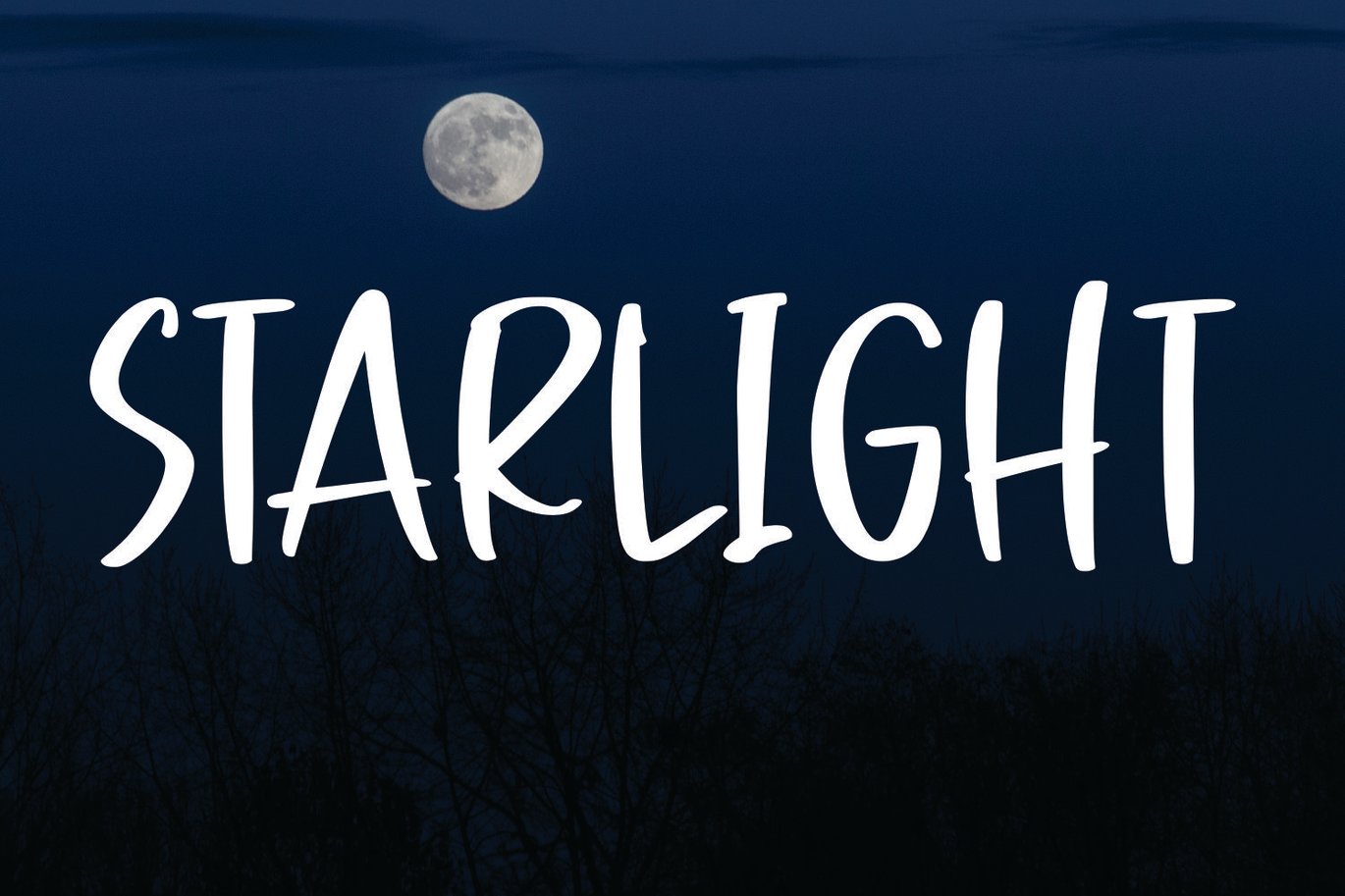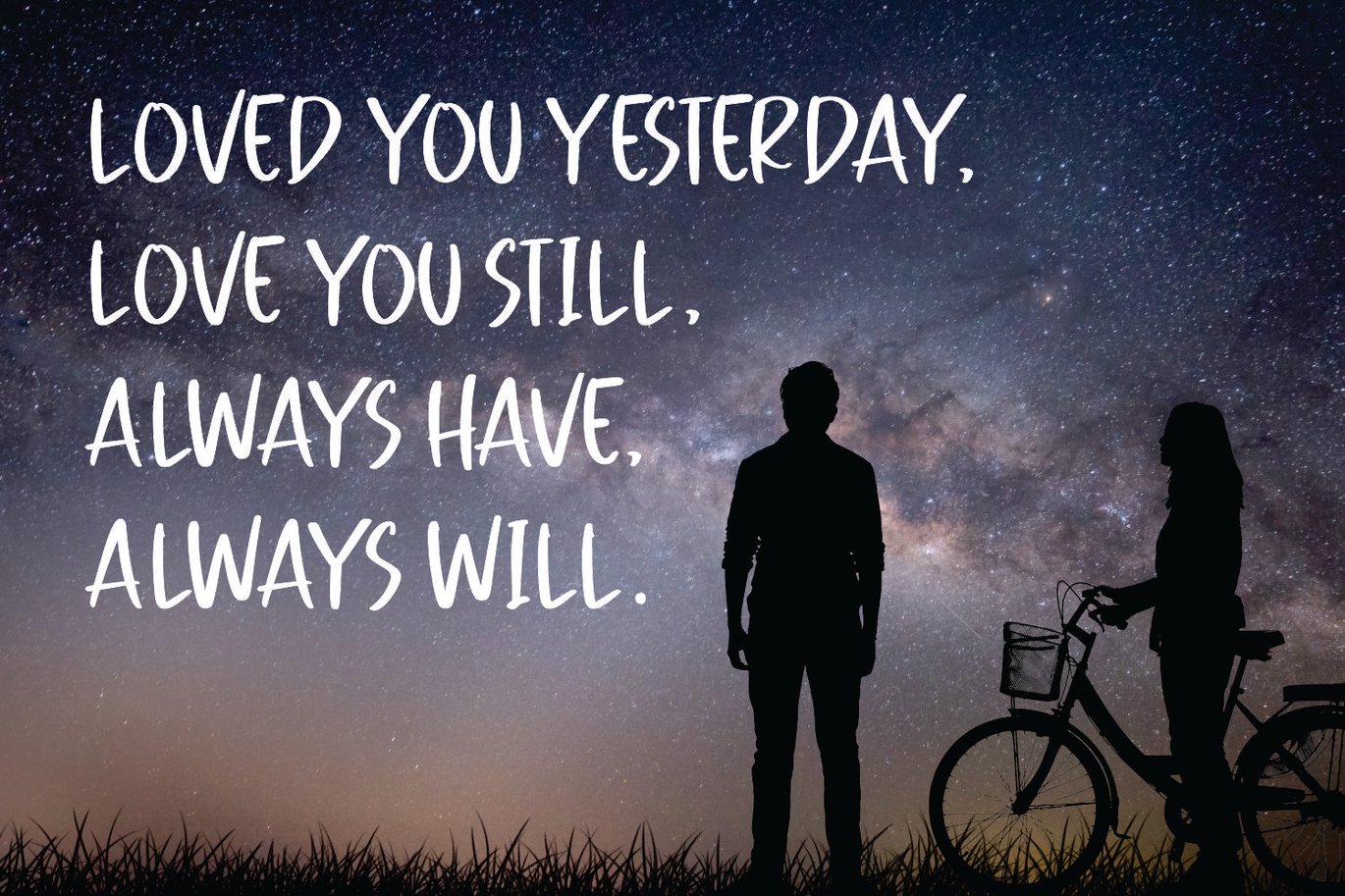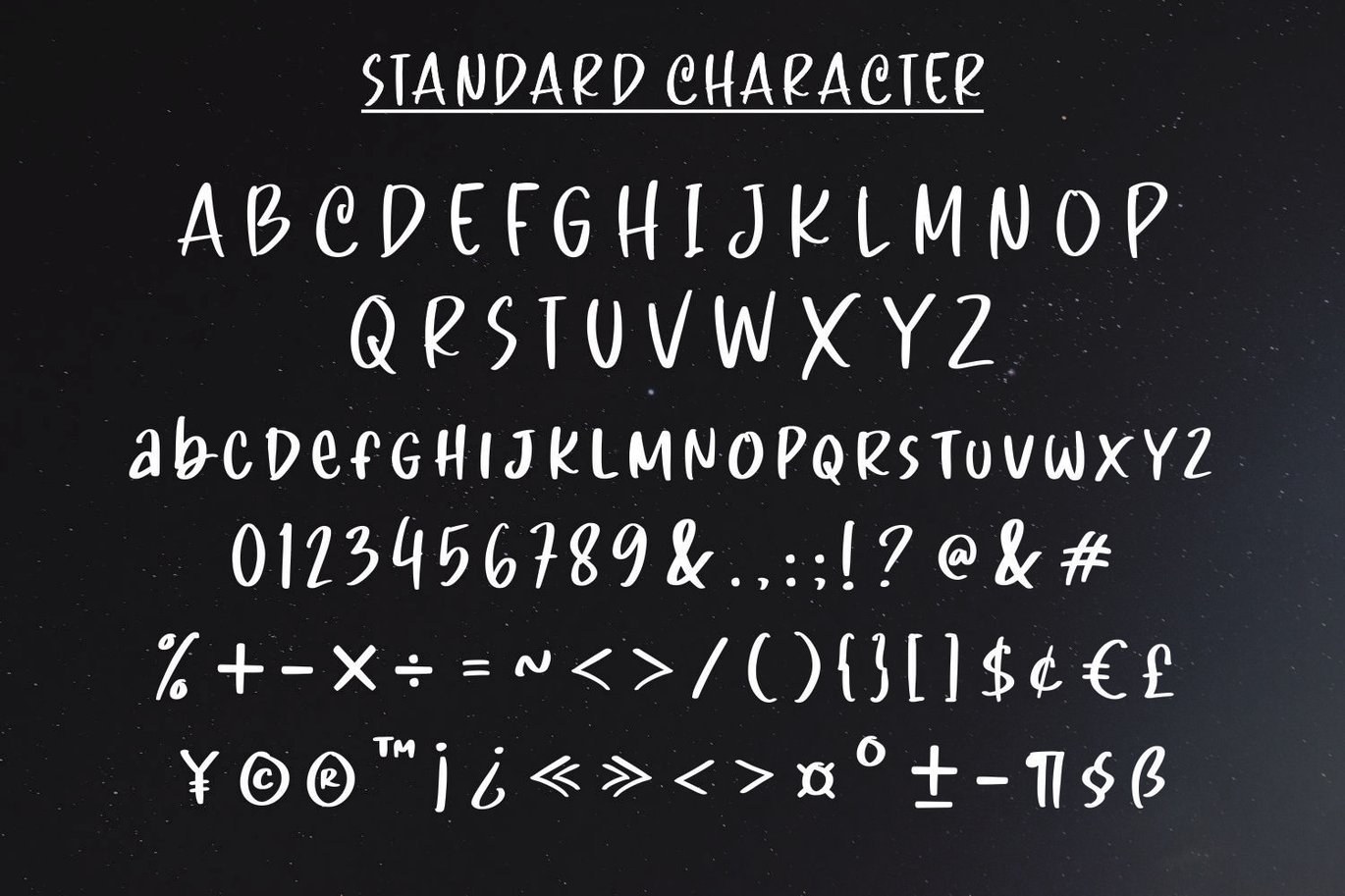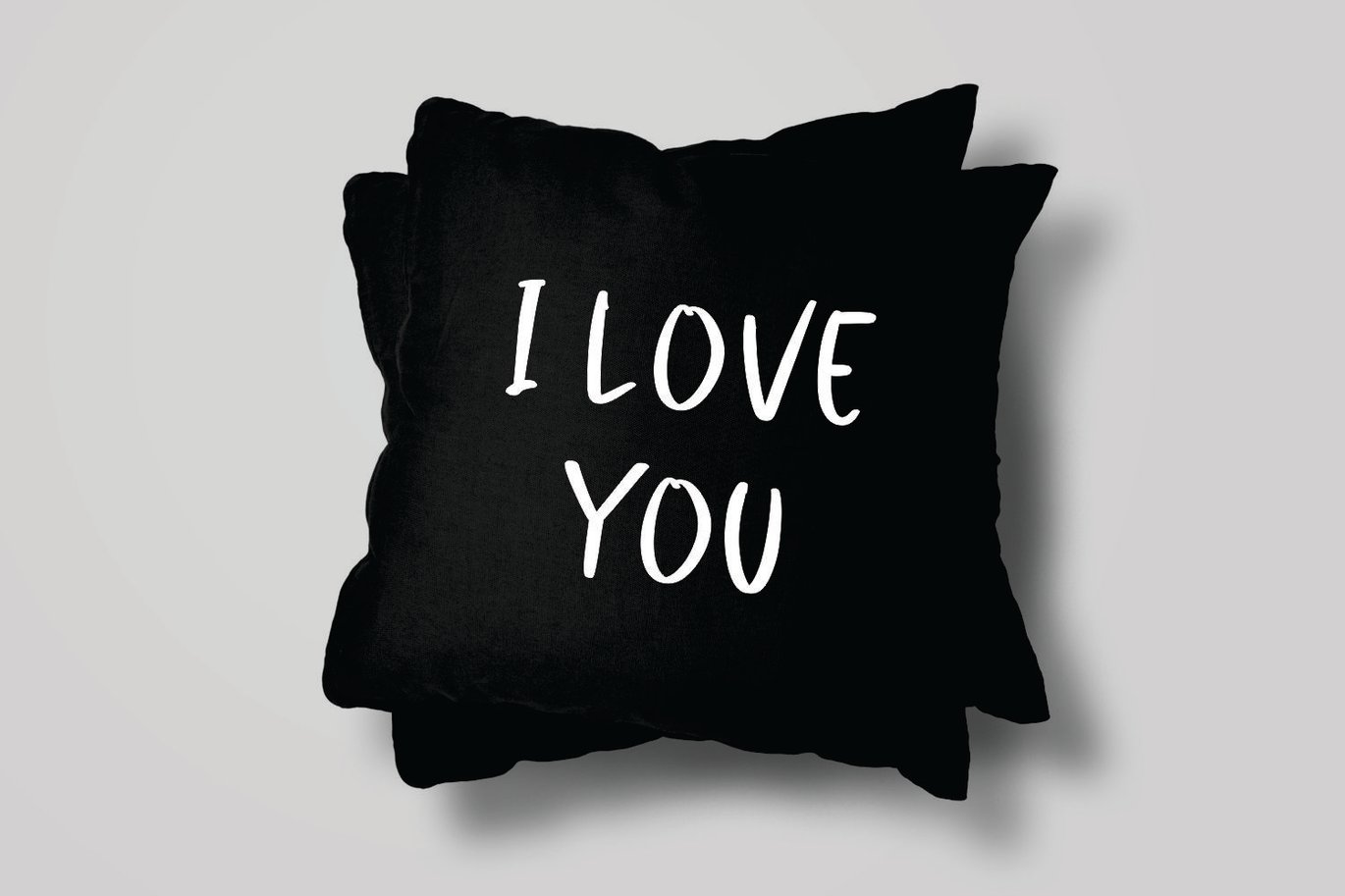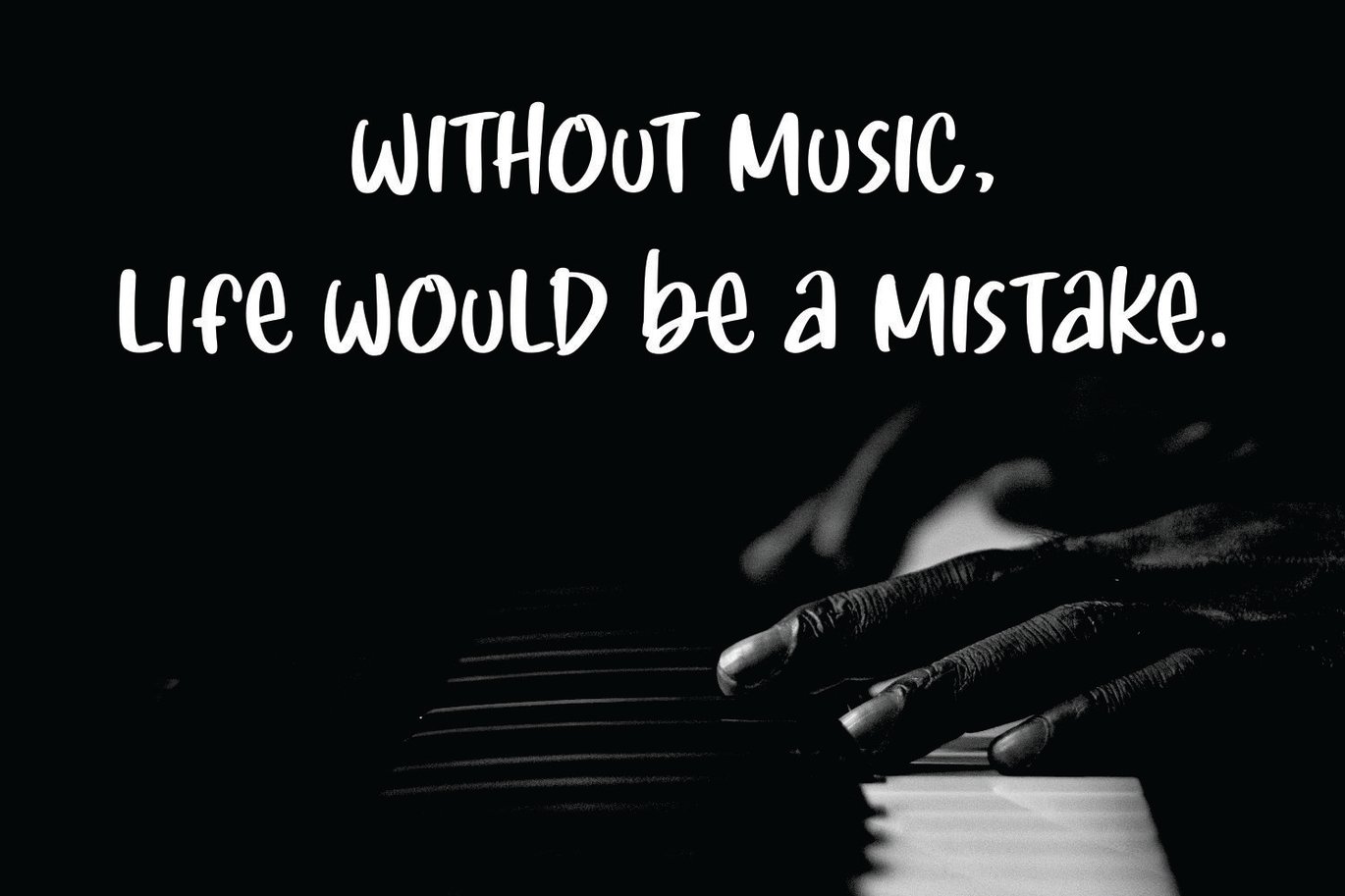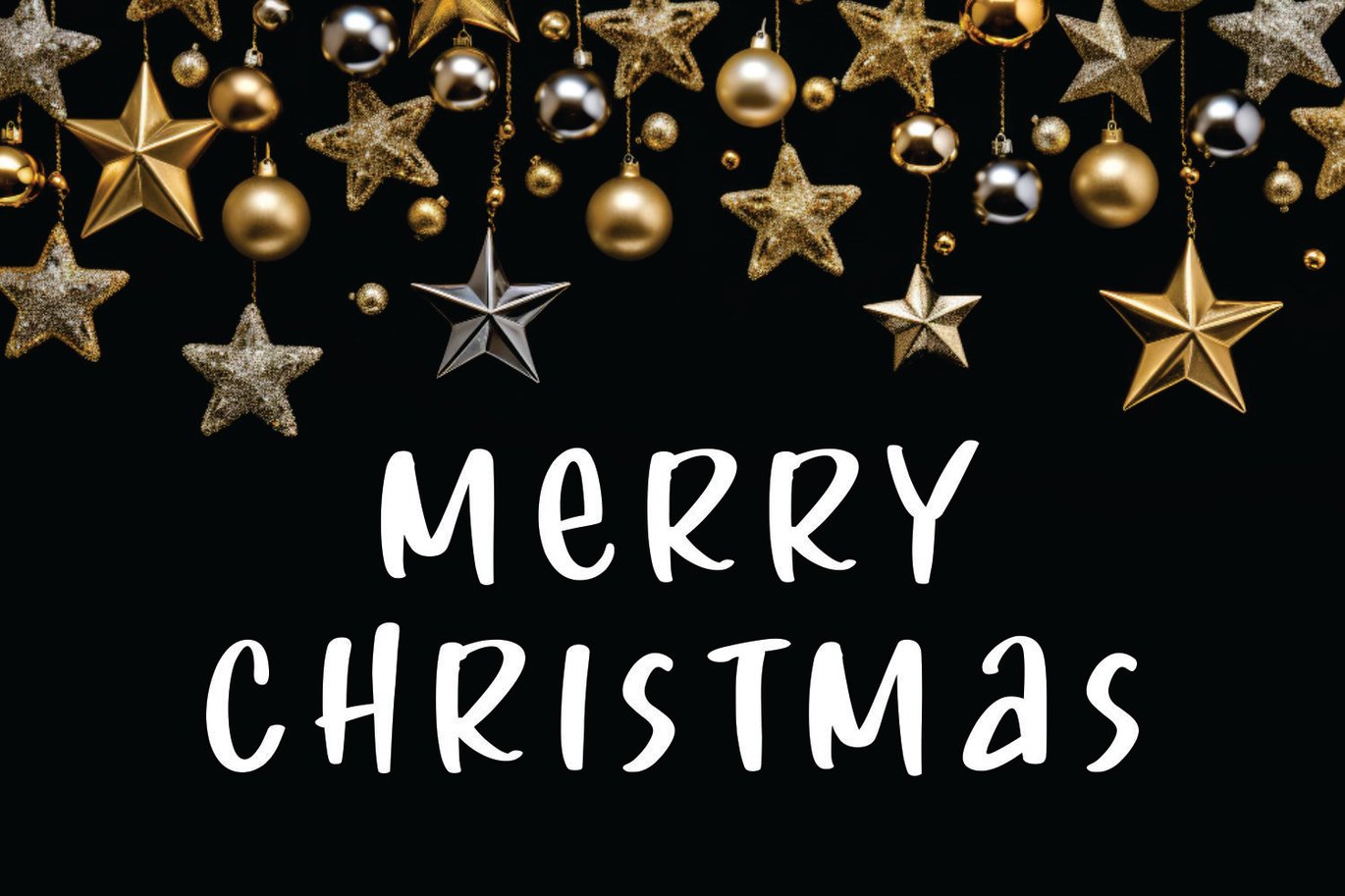
Starlight – Christmas Font
Starlight is a fun and casual handwritten font. Incredibly versatile, this font is suitable for a wide pool of design ideas.
It is a beautiful handwritten font, perfect for magazines and crafts. Add it to your fonts library, and use it to create spectacular designs!
This font is ideal for crafting, branding, and decorates your any project. These fonts are perfect for wedding invitations or your blog.
Also with their help, you can create a logo or beautiful frame for your home. Or just use it for your business, book covers, stationery, marketing, magazines, and more.
Fall in love with its incredibly versatile style and use it to create spectacular designs!